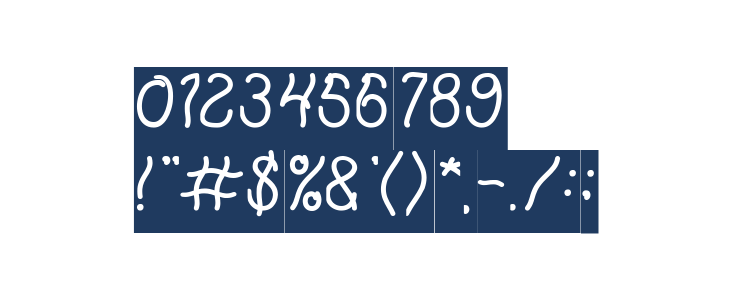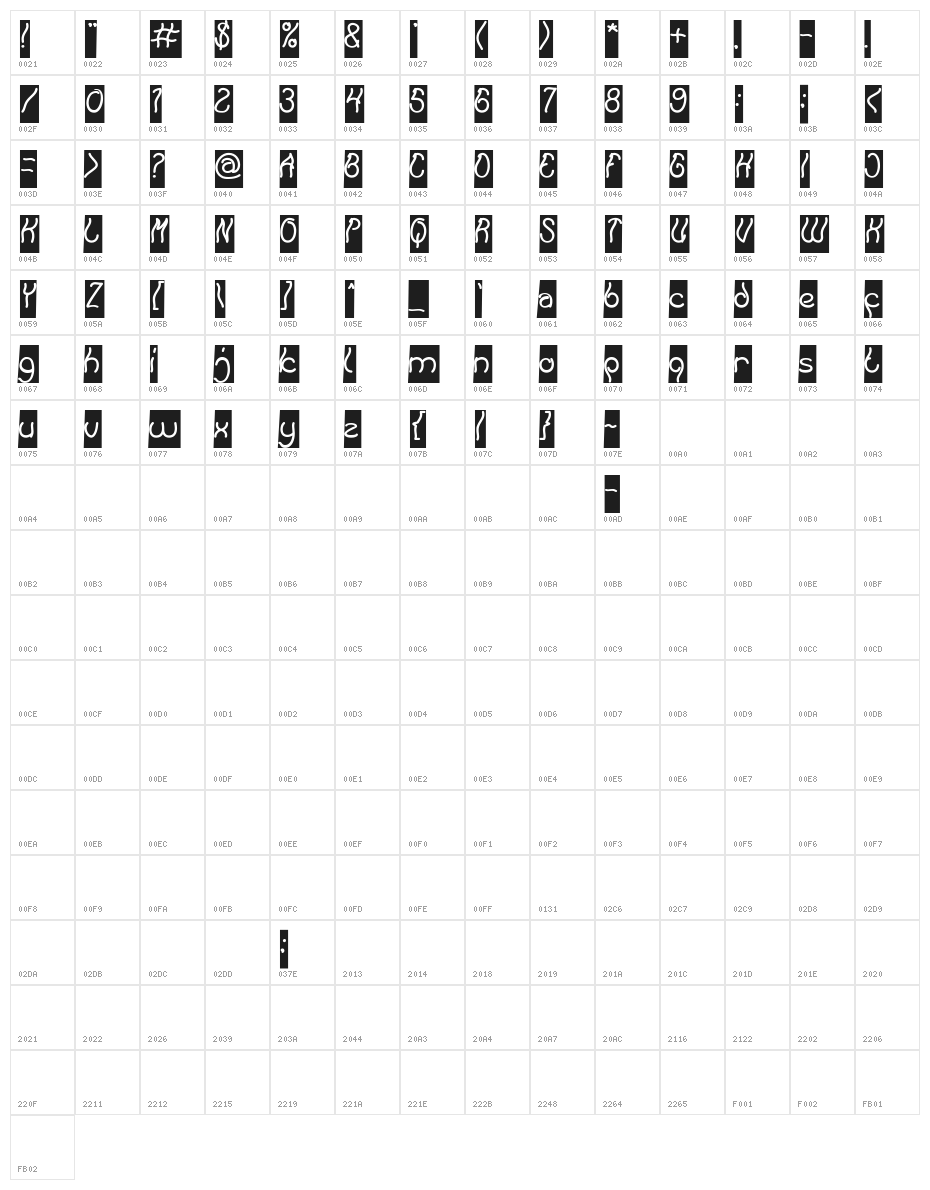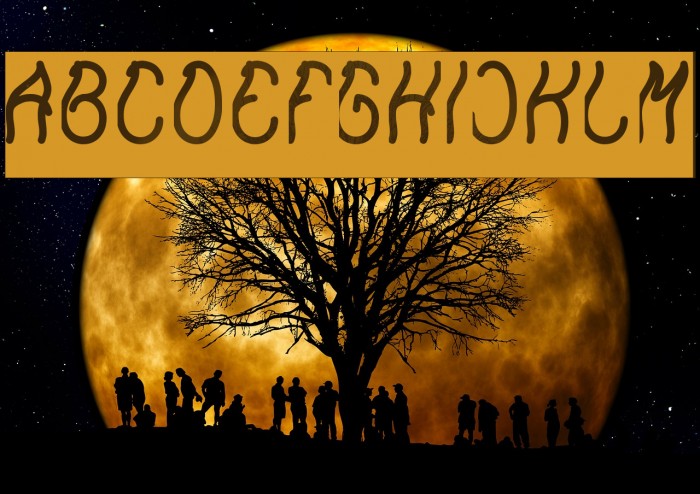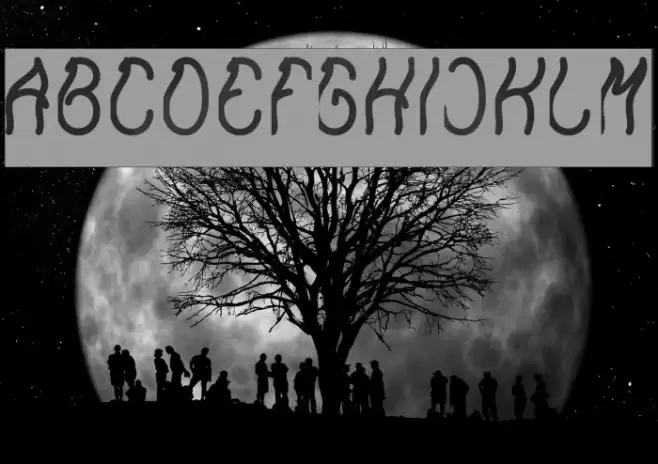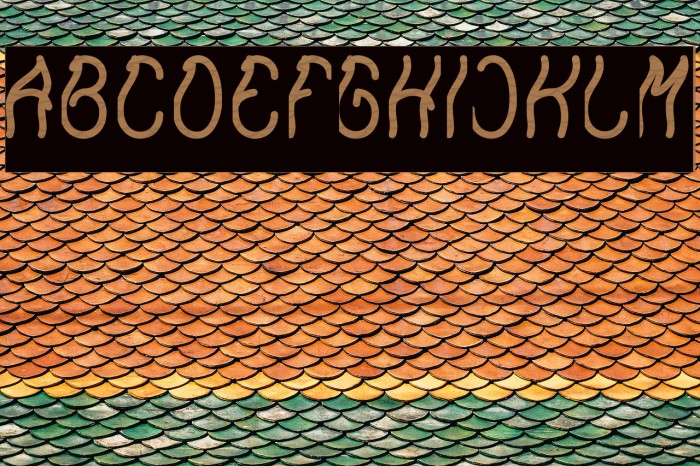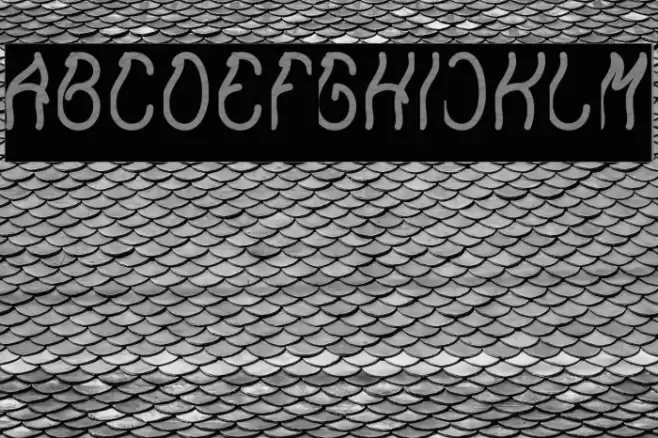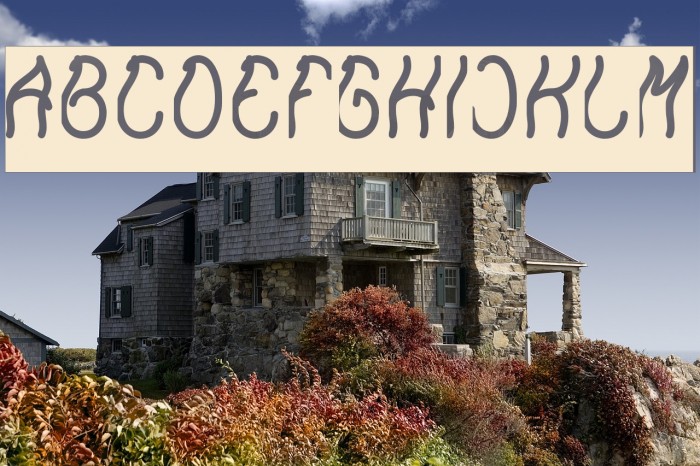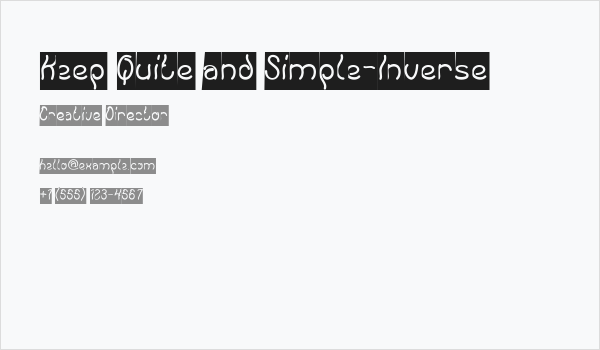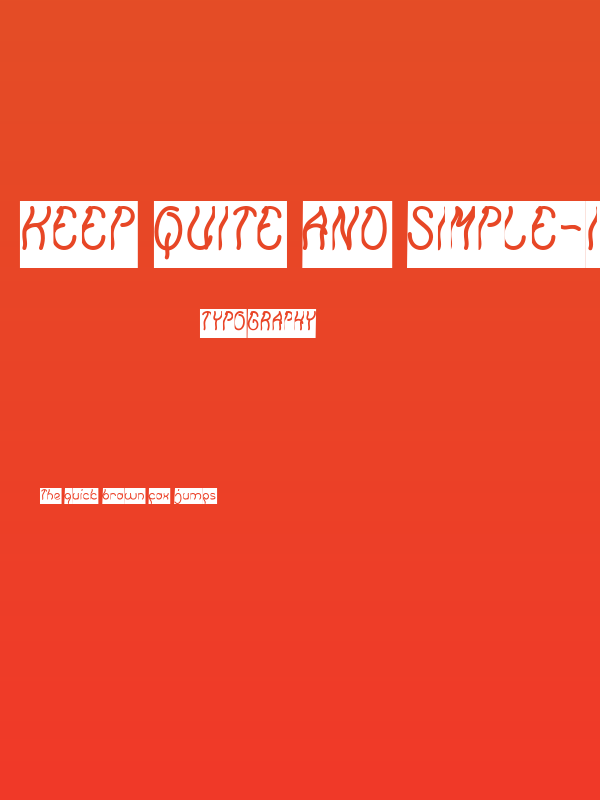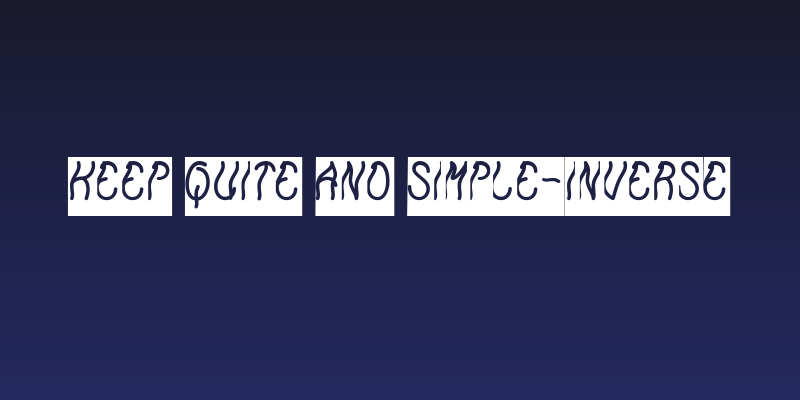
Keep Quite and Simple-Inverse Font
Keep Quite and Simple-Inverse Description
This font features a unique and playful design with a handwritten style that incorporates fluid, curvy lines and a slightly whimsical appearance. The characters are distinct with a consistent stroke width, giving it a cohesive look. The uppercase and lowercase letters maintain a similar style, with the lowercase being slightly more compact. Numbers and special characters follow the same playful and fluid design, making them easily recognizable. The overall appearance is casual yet artistic, suitable for creative projects.
| Proposed Projects | Ideal for greeting cards, children's books, creative posters, and playful branding. |